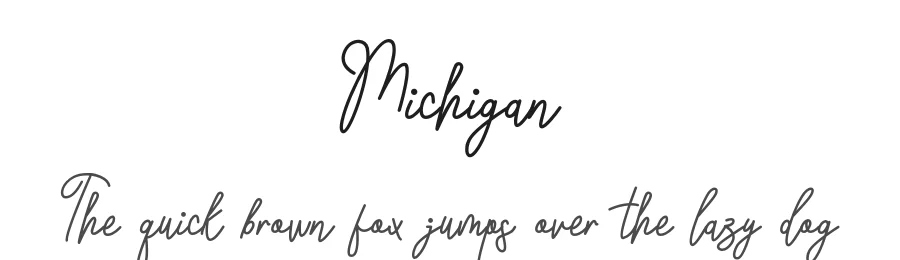
About Knott Riccardo Font
Designers Note :
Knott Riccardo Specifications
| Font Family | Knott Riccardo |
| Full Name | Knott Riccardo |
| Glyph Count | 268 glyphs |
| PostScript Name | KnottRiccardo |
| Designer | Nanang Jamaludin |
Knott Riccardo supports 222 languages.
Knott Riccardo Font is a script font that shines as a display or heading face. Pair it with a clean sans-serif or serif font for body text β the contrast creates a clear hierarchy while the two styles stay balanced and easy to read.